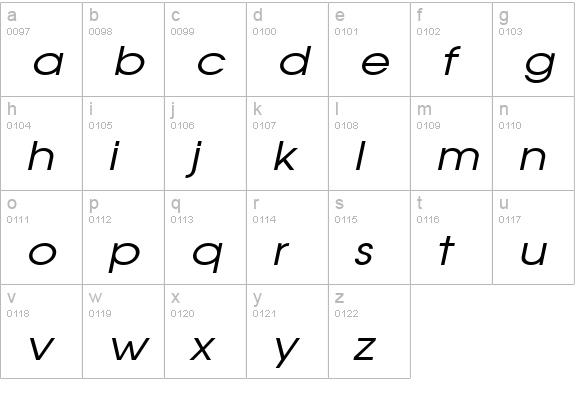
Atilla Wide Italic is a distinctive, extended-width, italic variant in the Atilla typeface family \xE2\x80\x94 well suited to design and typography projects.
The Atilla Wide Italic font is a stylish and modern typeface that exudes elegance and sophistication. Its unique italic design adds a touch of flair to any project, making it perfect for both headings and body text. With its wide letterforms, this font commands attention and makes a bold statement. Designed with precision and attention to detail, the Atilla Wide Italic font is versatile and suitable for a wide range of design projects, from branding to editorial design. Its sleek and contemporary look will elevate any design and give it a professional edge. The best part? Atilla Wide Italic font is available for free download at FontsMarket.com, making it accessible to all designers and creatives looking to add a touch of sophistication to their projects without breaking the bank. Don't miss out on this opportunity to elevate your designs with this stunning typeface.